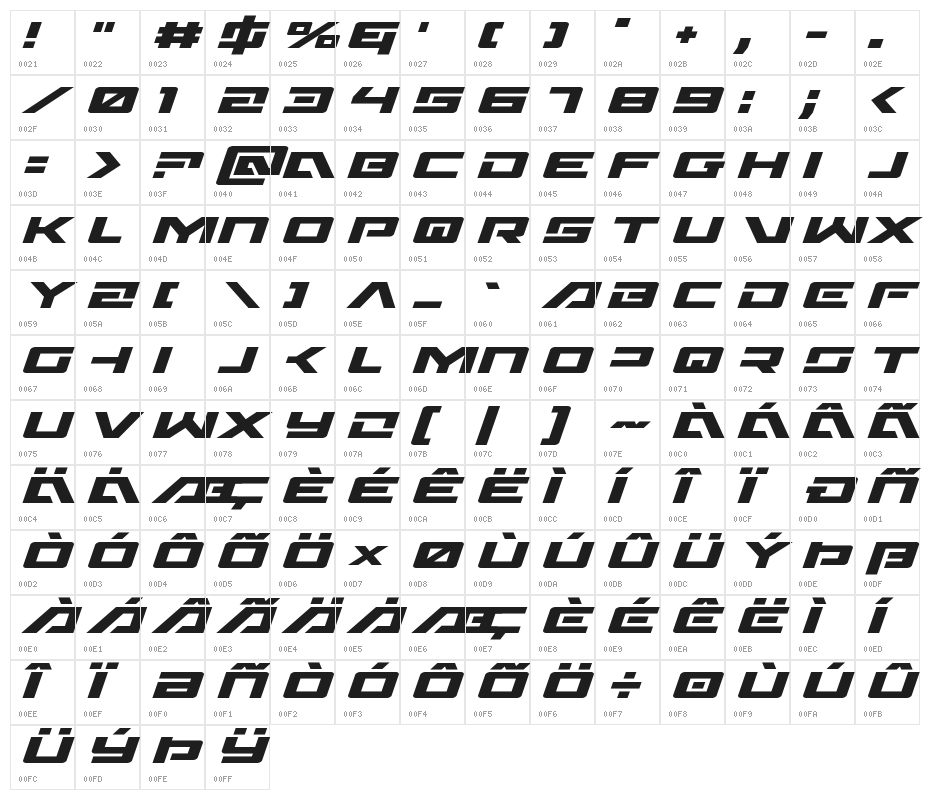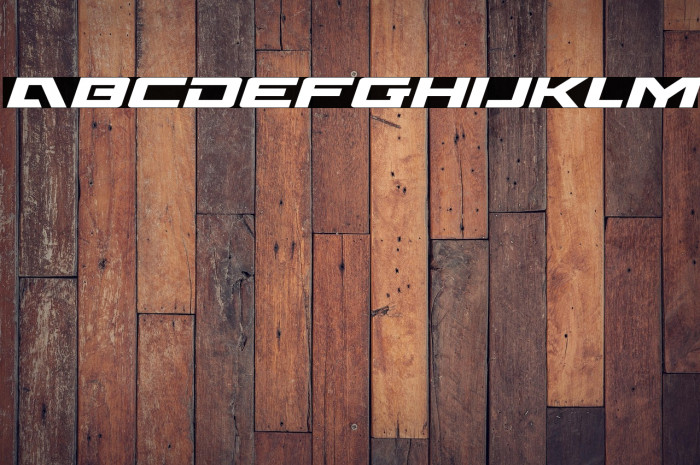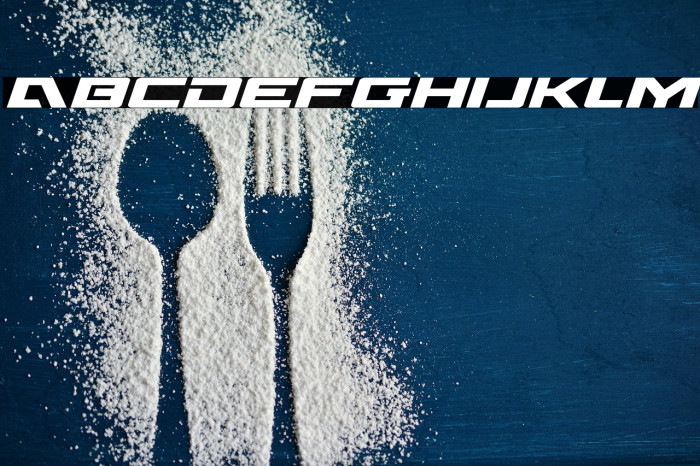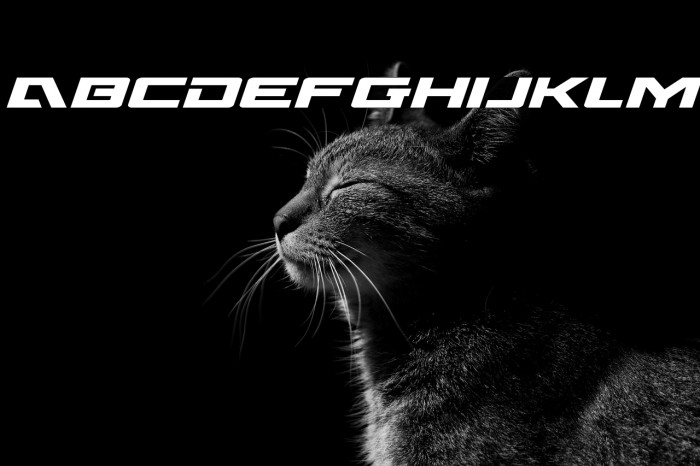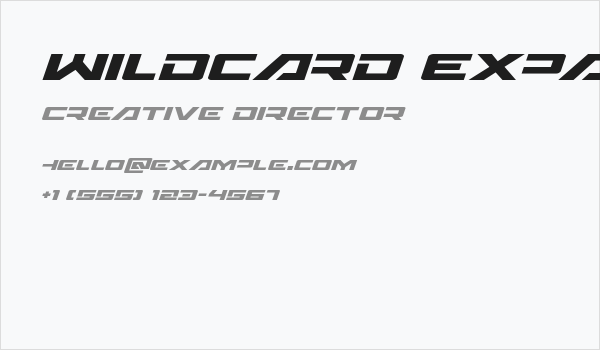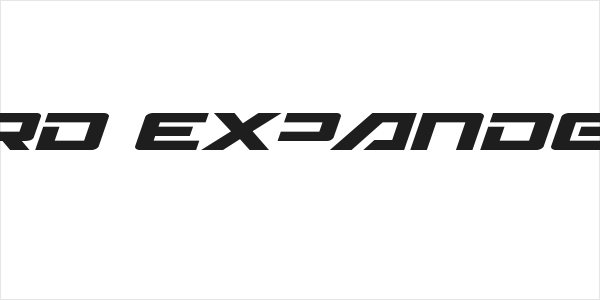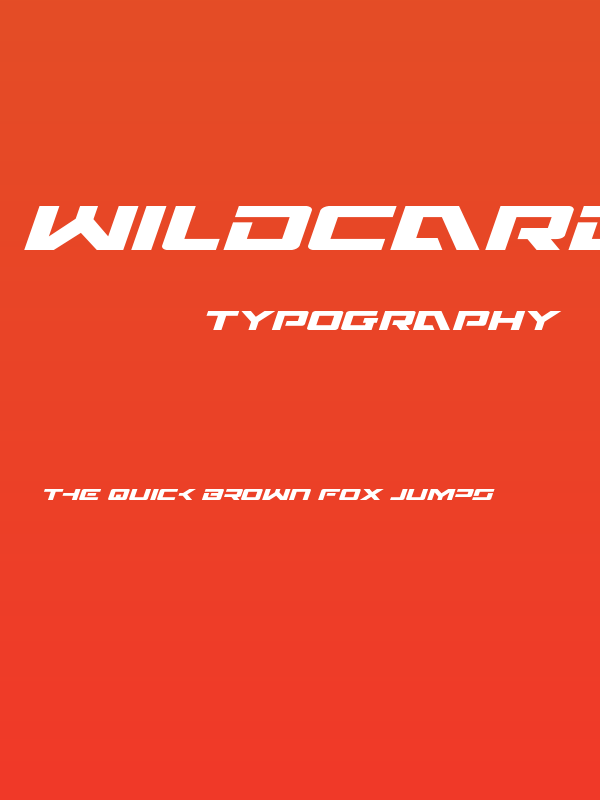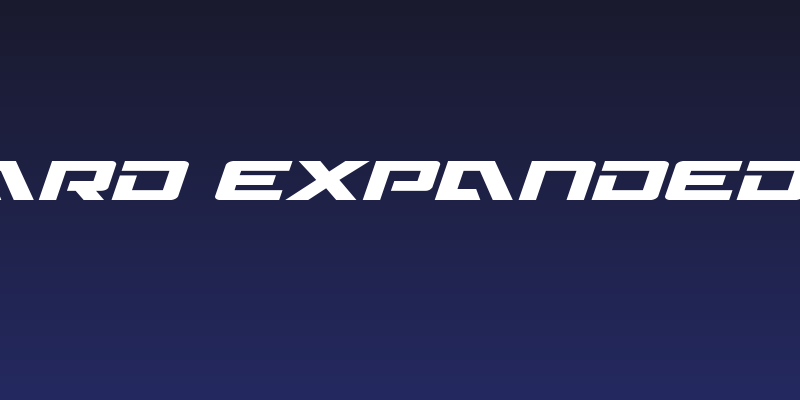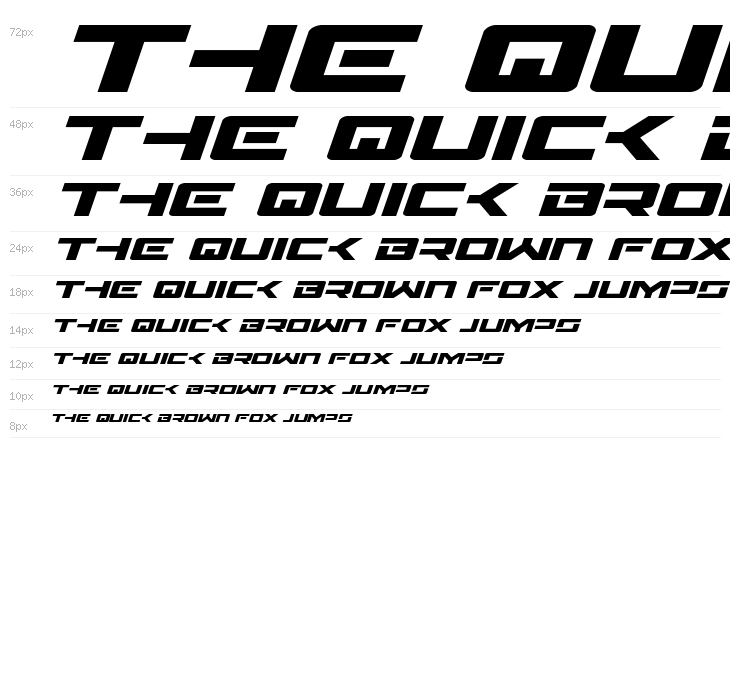
Wildcard Expanded Italic Font
Wildcard Expanded Italic Description
This font features a bold and dynamic design with a futuristic and angular aesthetic. The characters are expanded and italicized, giving them a sense of motion and speed. The sharp edges and geometric shapes create a striking appearance, making it ideal for attention-grabbing headlines or modern branding. The uppercase and lowercase letters maintain a consistent style, while the numbers and special characters integrate seamlessly with the overall design. The font's expanded width and italic slant contribute to its unique and contemporary look.
| Proposed Projects | Ideal for sci-fi themed projects, modern branding, sports team logos, and dynamic advertising campaigns. |